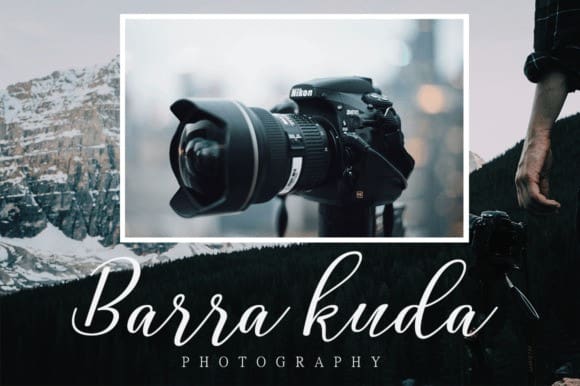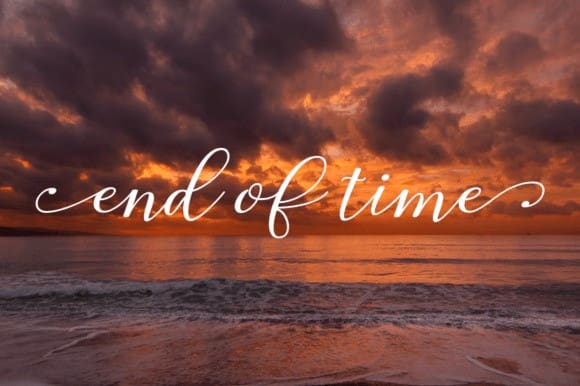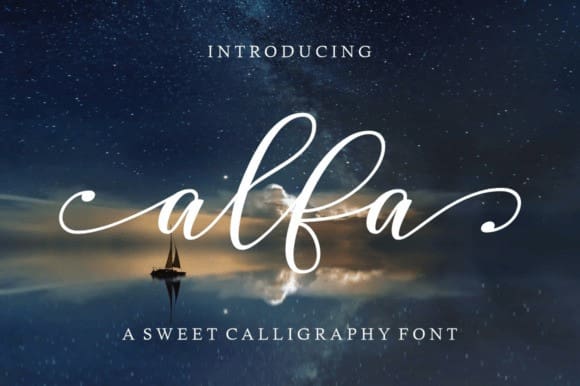
Alfa Calligraphy Font
Alfa Calligraphy Font, is a modern calligraphy font in a contemporary handwriting style. This font is perfect for branding, wedding invites, magazines, mugs, business cards, quotes, posters, and more.